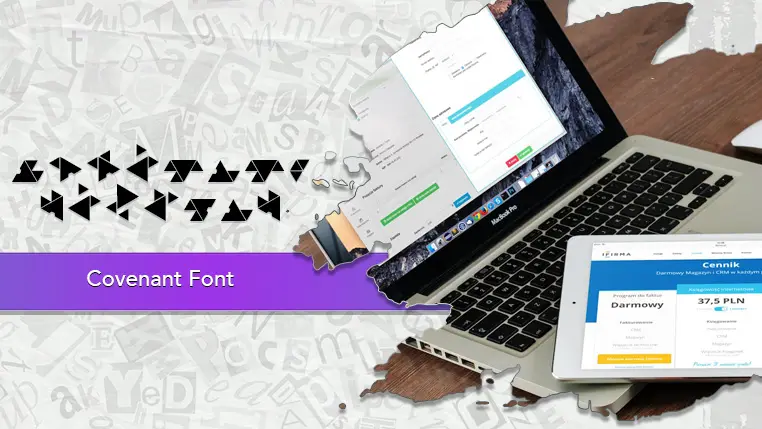
The Covenant font family may be ideal for you if you enjoy working on an artistic design project. The lively, expressive look of this typeface, which was created by Alex joystikX, makes it ideal for Halloween and Spooky Designs. This is where Covenant truly shines. It's ideal for movie posters, book covers, video game titles, and promotional materials for anything in the horror, thriller, or suspense genres. Its rough edges and "sense of movement" lend themselves perfectly to conveying unsettling themes. Its expressive brush strokes can give titles a dynamic and impactful look, fitting well with the visual nature of comics. and other light-hearted visual projects.
Regular are the one primary font styles of the Covenant font family. You may build dynamic, visually appealing text layouts with the distinct flair that each style offers. With crisp, readable lines and a relaxed tone.